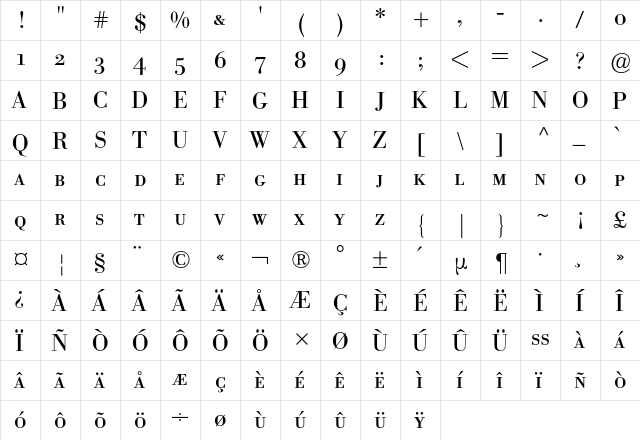
Bodoni Berthold Expert BQ Regular
Design Context for Bodoni Berthold Expert BQ Typeface
Bodoni Berthold Expert BQ takes a measured approach to typography — its balanced proportions and neutral character make it a reliable workhorse for both digital and print work.